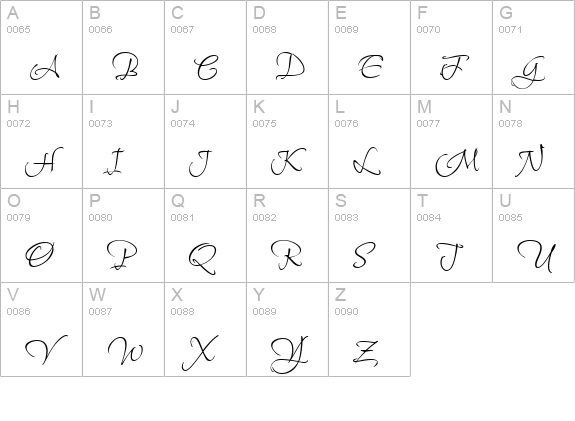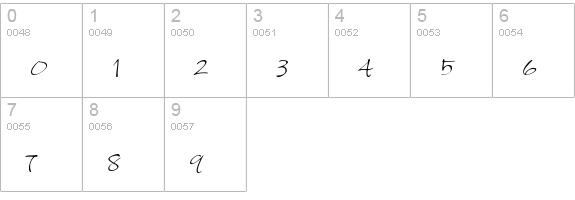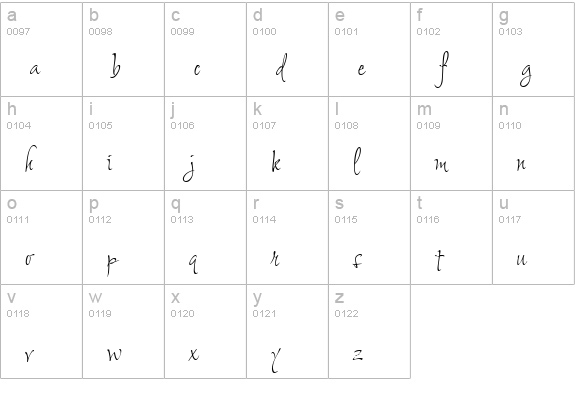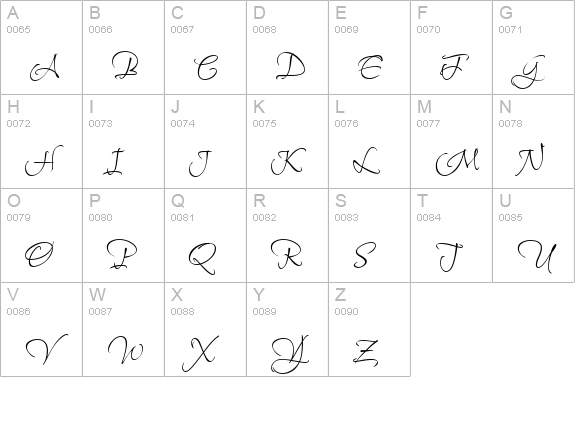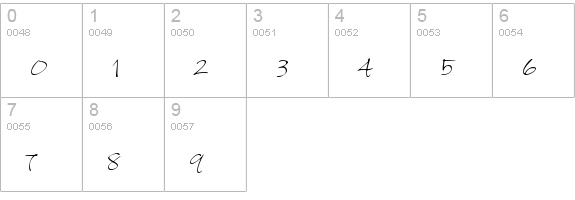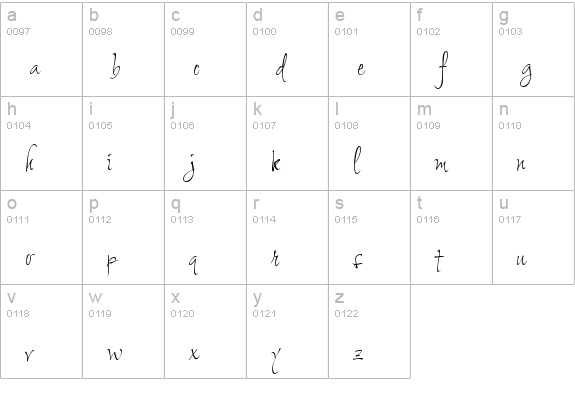
Shalimar Swash ROB Font Details
Introducing Shalimar Swash ROB font – a captivating and elegant typeface that exudes sophistication and charm. This font is the perfect choice for adding a touch of luxury to your designs, whether it be for invitations, logos, branding, or any other creative project. Shalimar Swash ROB boasts an exquisite balance between classic and contemporary design elements, making it suitable for a wide range of applications. Its delicate and flowing letterforms create a sense of grace and elegance, while the swashes and intricate details add a touch of flair and uniqueness. One of the standout features of Shalimar Swash ROB is its versatility. Whether you want to create a romantic wedding invitation or a sleek and modern logo, this font can effortlessly adapt to any style or theme. Its timeless appeal ensures that your designs will always remain relevant and captivating. And the best part? Shalimar Swash ROB is available for free download at FontsMarket.com. That's right, you can enjoy all the beauty and functionality of this stunning font without spending a dime. Simply head over to FontsMarket.com, locate Shalimar Swash ROB, and let your creativity soar. So, why settle for ordinary fonts when you can elevate your designs with the enchanting allure of Shalimar Swash ROB? Download it today and unlock a world of endless possibilities for your creative endeavors.